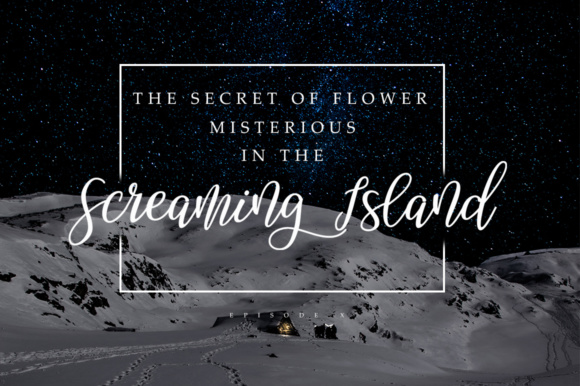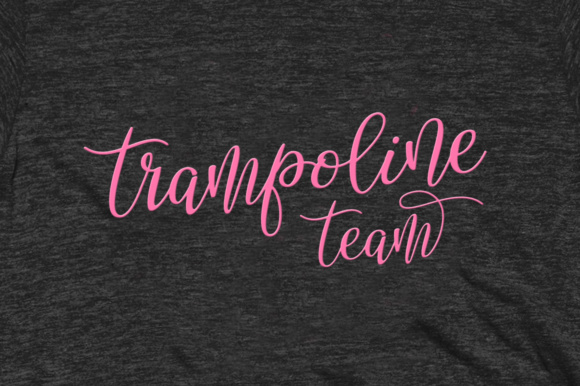
Champagne Font
db-ku.com - Script & Handwritten -- The Champagne is a beautiful and elegant script. It’s perfect for branding, blog logos, websites, print ads, book covers, film covers, apparel, cards, logos, posters, and every other design that needs an elegant feel.